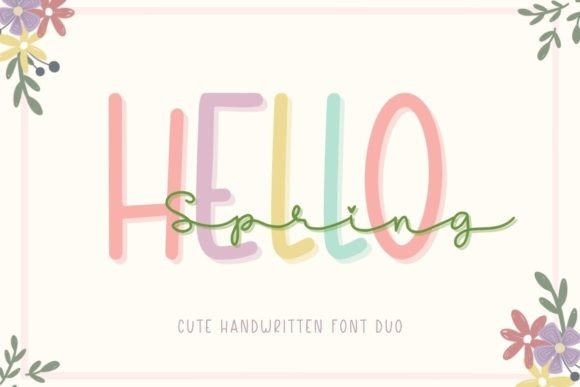
Introducing the Best Fonts For Modern Websites: Hello Spring Font! Created by AnningArts, this cute handwritten font duo (sans and script) is the perfect solution to elevate your designs to a whole new level.
The Hello Spring Font is masterfully designed to become a true favorite for those looking for a stylish and modern font. Whether you are designing banners, content, mugs, cards, shirts, stationery, social media posts, or any other creative project, Hello Spring is sure to impress.
With its unique and eye-catching style, this font is perfect for anyone looking to add a touch of personality to their designs. The Hello Spring Font is ideal for those who are looking for a font that stands out and catches the eye of their audience.
In addition to its visual appeal, Hello Spring is also incredibly versatile. It works well with a wide variety of design elements, making it the perfect choice for anyone who needs a font that can be used in a variety of different contexts.
So if you're looking for a font that is both stylish and versatile, look no further than the Best Fonts For Modern Websites: Hello Spring Font. With its cute handwritten style and unique design, it is sure to become a favorite among designers and creatives alike. Don't miss out on the opportunity to take your designs to the next level with Hello Spring!